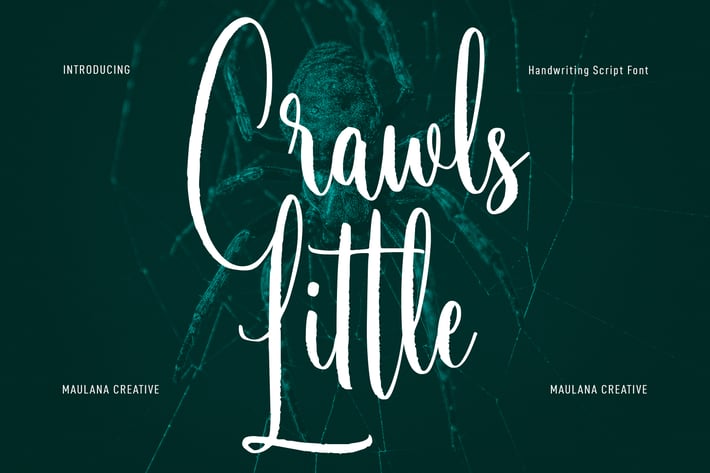
Little Crawls Script Font
Little Crawls is a tall modern script font. With light contrast stroke, fun character with a bit of ligatures and alternates. To give you an extra creative work. Little Crawls font support multilingual more than 100+ language. This font is good for logo design, Social media, Movie Titles, Books Titles, a short text even a long text letter and good for your secondary text font with sans or serif. Make a stunning work with Little Crawls font.